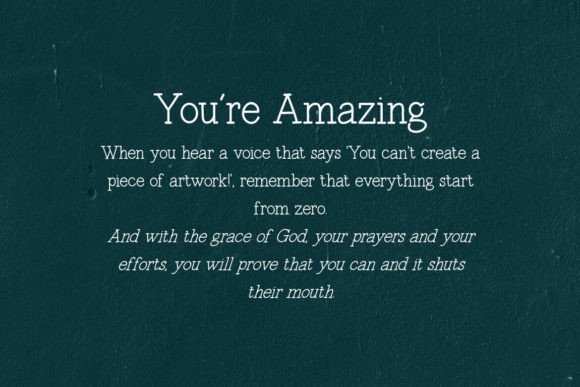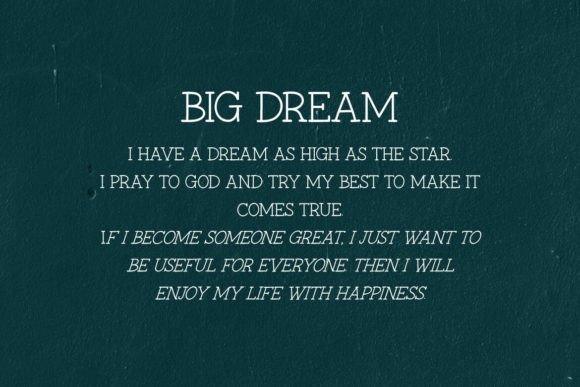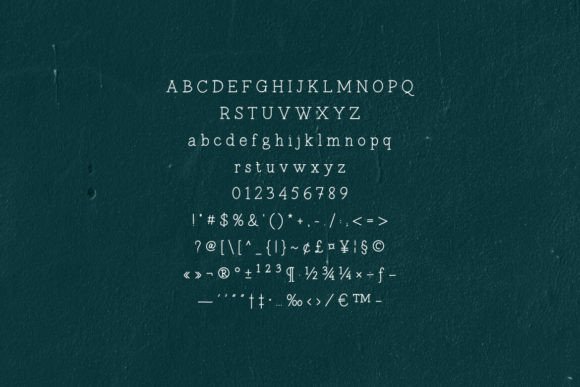
Amateur Hand Font
Introducing Amateur Hand, a unique handwritten typewriter font that blends the classic feel of a typewriter with the personal touch of handcrafted script. This font is perfect for designers and creatives looking to add a touch of nostalgia and warmth to their projects.